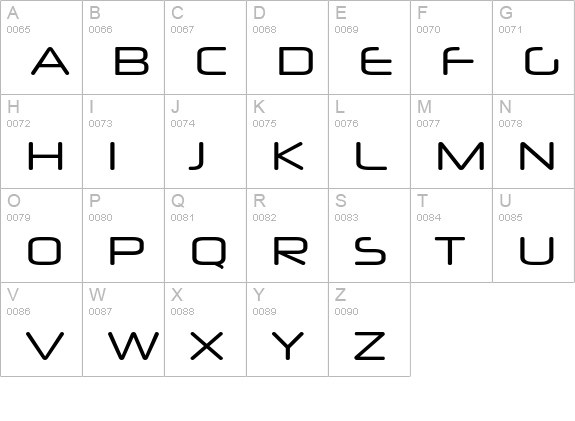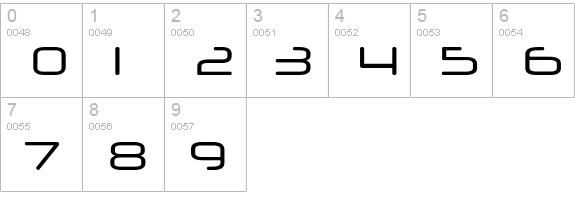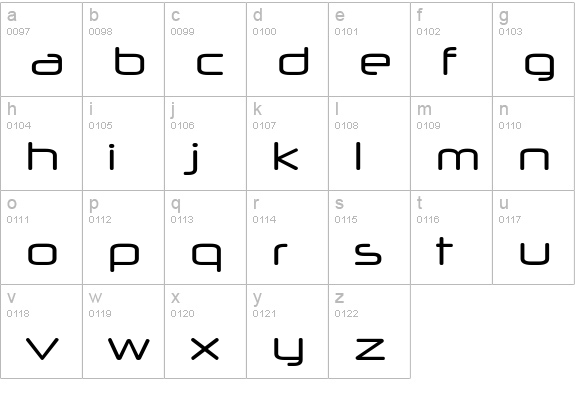
Neuropol X Font Details
Neuropol X is a futuristic and edgy font that exudes a sense of modernity and innovation. Its sleek and geometric design makes it perfect for tech-related projects, sci-fi themes, and any creative endeavor that calls for a bold and contemporary typeface. With its sharp angles and clean lines, Neuropol X commands attention and adds a dynamic touch to any design. Best of all, Neuropol X is available for free download at FontsMarket.com. This means that you can easily access this cutting-edge font without any cost, making it a valuable addition to your font collection. Whether you're working on a website, poster, logo, or any other project, Neuropol X is sure to make a striking impression and elevate your design to the next level. Download Neuropol X today and unleash your creativity with this sleek and modern font.